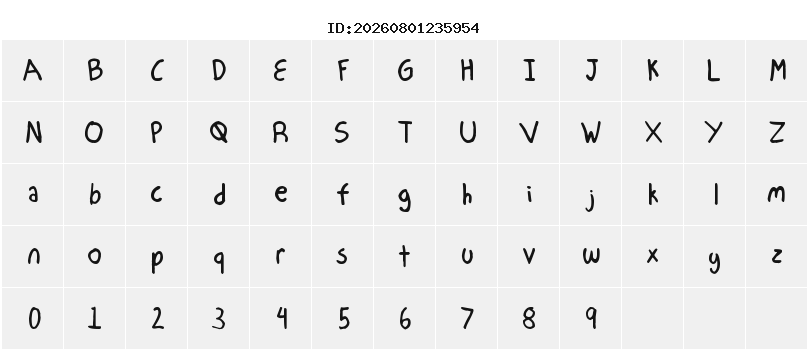
Mechanical Pencil Preview
• Font Name: Mechanical Pencil
• Font ID: Mechanical Pencil:Version 1.00
• Full Font Name: Mechanical Pencil
• Version: Version 1.00 February 4, 2008, initial release
• PostScript Name: MechanicalPencil
• Character Count: 175
• Description: This font was created using FontCreator 5.6 from High-Logic.com
About Mechanical Pencil.ttf
Mechanical Pencil.ttf is a modern, elegant sans-serif font designed for ultimate readability and visual harmony. Perfect for branding, headlines, web design, and print materials.